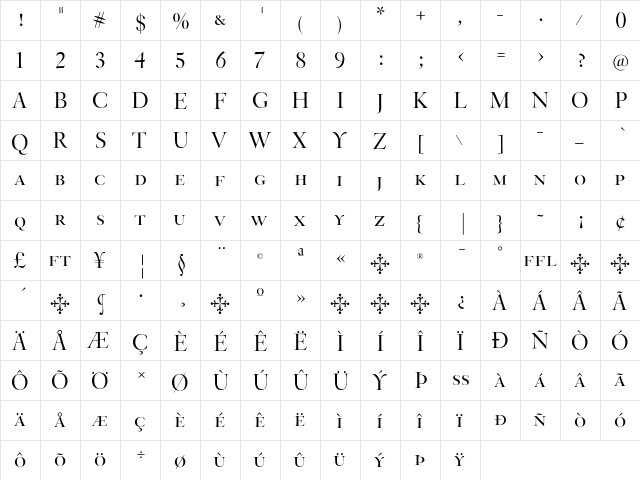
EldoradoDisplay RomanSC Font Preview
EldoradoDisplay RomanSC
EldoradoDisplay RomanSC Font Details
Design Context for EldoradoDisplay Typeface
EldoradoDisplay brings ornamental detail and strong personality to headlines and identities, where visual impact matters more than quiet functionality.
Font Pairing: Pair with a clean neutral sans-serif for body copy to let EldoradoDisplay's character lead without overwhelming the composition.
Pro Tip: Use EldoradoDisplay exclusively at display sizes — it was designed to be seen, not read at length. Let a neutral companion handle body copy.